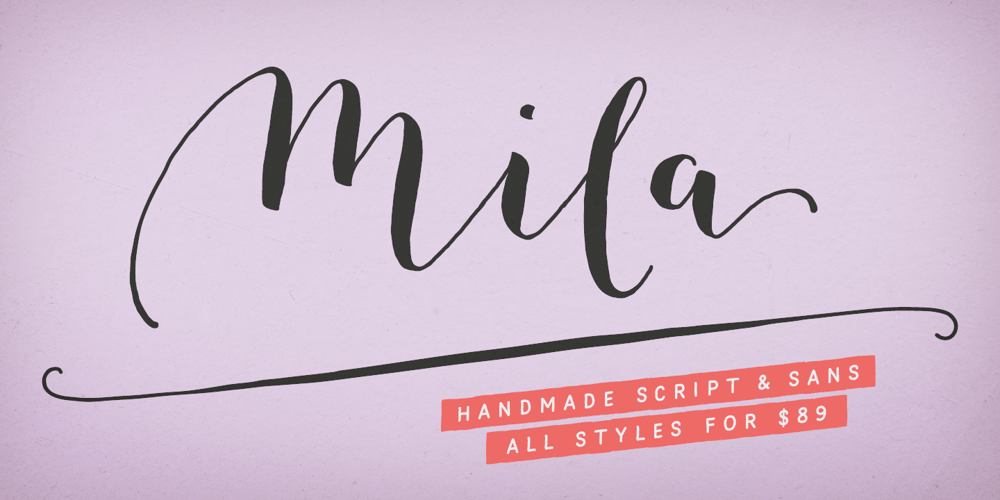
Mila Script Pro
Mila Script Pro font
Mila Script Pro Font Family was designed by Georg Herold-Wildfellner and published by FaceType. Mila Script Pro contains 6 styles and family package options. Proud to introduce: The all hand-drawn Mila Script Pro Family Mila Script is a handmade brush script with round and soft letterforms, a low x-height and jumping baseline. Smart OpenType features care about all letterforms and choose between connected and non-connected styles. AutomaticSwashControl adjusts the swashy letters to the available white space. It’s installed within Mila’s main features OpenType Contextual-Alternates, Swashes and Titling-Alternates. Switch one on and let Mila do the rest. · Please read over the manual. It describes the family in detail. · Of course there’s a little more know about Mila Script Pro: 2600+ characters offer four different initial styles, capital swash and titling alternates, connected words, 17 different initial and terminal swashes and much more. All of course with full ISO latin 1 & 2 language support. · Mila Script Basic (900+ characters) offers all single features contained in OpenType Contextual-Alternates: subtle contextual swash alternates, positional forms, ligatures, connecting and non-connecting characters … · Mila Script Sans: Mila Script Sans is a hand-drawn/handwritten “all caps” in three different weights. Mila Script and Mila Script Sans go well together: combine them and equal the line weights by choosing Light, Regular or Bold. Always keep it way smaller than Mila Script. Mila Script Sans also works well as a standalone. It offers negative typesetting, bicolor typesetting by layering two styles and even alternates without counters. Please see the manual for instructions. · Mila Script Ornaments: Change the size and keep the line weight: activate Contextual Alternates, type a letter and add + to enlarge all swashes according to your likings. Mila Script Ornaments contains 69 different swashes and symbols, all of them available in seven different sizes, which makes a total of 483 characters. All ornaments are within easy reach and there’s no need to access certain symbols manually via your glyph palette. · Have fun! · View other fonts from Georg Herold-Wildfellner: Sofa Serif | Sofa Sans | Mila Script Pro | Pinto | Supernett | Mr Moustache | Aeronaut | Ivory | Weingut · Language Report for Mila Script / 195 languages supported: Abenaki, Afaan Oromo, Afar, Afrikaans, Albanian, Alsatian, Amis, Anuta, Aragonese, Aranese, Aromanian, Arrernte, Arvanitic, Asturian, Aymara, Bashkir, Basque, Bikol, Bislama, Bosnian, Breton, Cape Verdean, Catalan, Cebuano, Chamorro, Chavacano, Chickasaw, Cimbrian, Cofan, Corsican, Creek, Crimean Tatar, Croatian, Czech, Danish, Dawan, Delaware, Dholuo, Drehu, Dutch, English, Estonian, Faroese, Fijian, Filipino, Finnish, Folkspraak, French, Frisian, Friulian, Gagauz, Galician, Genoese, German, Gooniyandi, Greenlandic, Guadeloupean, Gwichin, Haitian Creole, Han, Hawaiian, Hiligaynon, Hopi, Hotcak, Hungarian, Icelandic, Ido, Ilocano, Indonesian, Interglossa, Interlingua, Irish, Istroromanian, Italian, Jamaican, Javanese, Jerriais, Kala Lagaw Ya, Kapampangan, Kaqchikel, Karakalpak, Karelian, Kashubian, Kikongo, Kinyarwanda, Kiribati, Kirundi, Klingon, Ladin, Latin, Latino Sine, Latvian, Lithuanian, Lojban, Lombard, Low Saxon, Luxembourgish, Makhuwa, Malay, Maltese, Manx, Maori, Marquesan, Meglenoromanian, Meriam Mir, Mohawk, Moldovan, Montagnais, Montenegrin, Murrinhpatha, Nagamese Creole, Ndebele, Neapolitan, Ngiyambaa, Niuean, Noongar, Norwegian, Novial, Occidental, Occitan, Oshiwambo, Ossetian, Palauan, Papiamento, Piedmontese, Polish, Portuguese, Potawatomi, Qeqchi, Quechua, Rarotongan, Romanian, Romansh, Rotokas, Sami Lule, Sami Southern, Samoan, Sango, Saramaccan, Sardinian, Scottish Gaelic, Serbian, Seri, Seychellois, Shawnee, Shona, Sicilian, Silesian, Slovak, Slovenian, Slovio, Somali, Sorbian Lower, Sorbian Upper, Sotho Northern, Sotho Southern, Spanish, Sranan, Sundanese, Swahili, Swazi, Swedish, Tagalog, Tahitian, Tetum, Tok Pisin, Tokelauan, Tongan, Tshiluba, Tsonga, Tswana, Tumbuka, Turkish, Turkmen, Tuvaluan, Tzotzil, Uzbek, Venetian, Vepsian, Volapuk, Voro, Wallisian, Walloon, Waraywaray, Warlpiri, Wayuu, Welsh, Wikmungkan, Wiradjuri, Xhosa, Yapese, Yindjibarndi, Zapotec, Zulu, Zuni